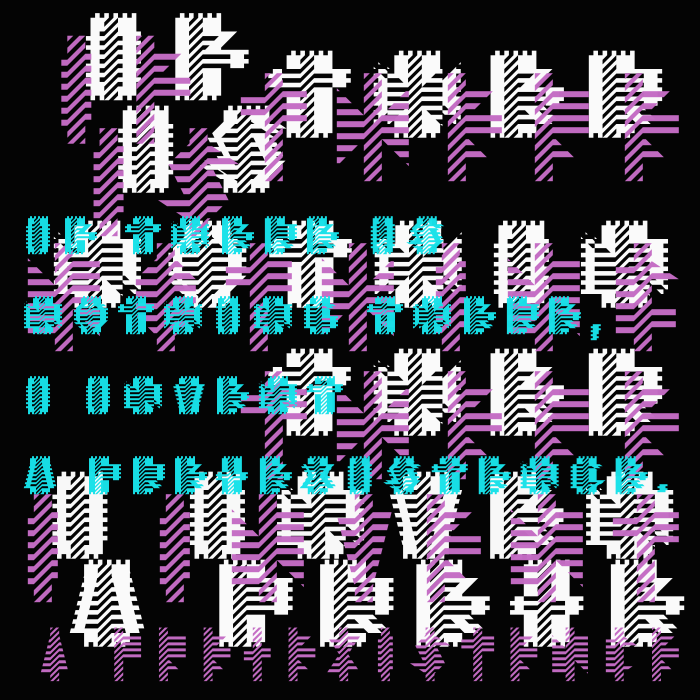
Dope stuff..
Your experimental approach and the variations within the font families are great and your layered samples give them an extra dimension.
I'm with four. My only "but" is the complicated legibility of some glyphs here.